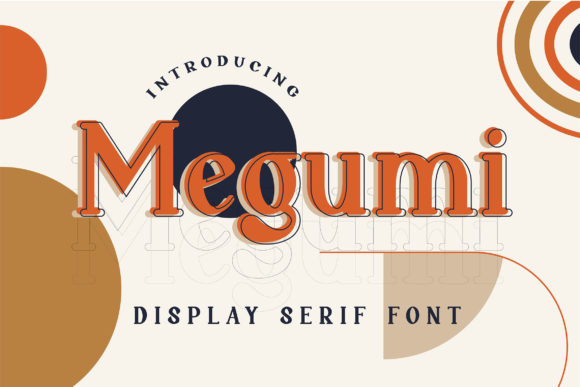
Introducing Megumi Font, the captivating serif font that will transform your designs into masterpieces. Bold, assertive, and undeniably stylish, Megumi is a symphony of elegance and power.
Indulge in the artistry of its meticulously crafted curves and sharp edges, designed to command attention and leave a lasting impression. Whether gracing the covers of magazines or emblazoning the titles of captivating videos, Megumi has the allure to captivate and inspire.
With its PUA encoding, accessing the full repertoire of glyphs and swashes is a breeze, empowering you to unleash your creativity without limits. Megumi's versatility extends beyond its visual splendor; its adaptability makes it the perfect companion for any design project, from striking posters to dynamic flyers.
As the undisputed "Best Font for Video Title," Megumi will elevate your visual content to new heights. Its bold presence will draw viewers in, enticing them to delve into the captivating world you create.
Embrace the allure of Megumi Font, and witness the metamorphosis of your designs into works of art that resonate with audiences and leave an indelible mark.